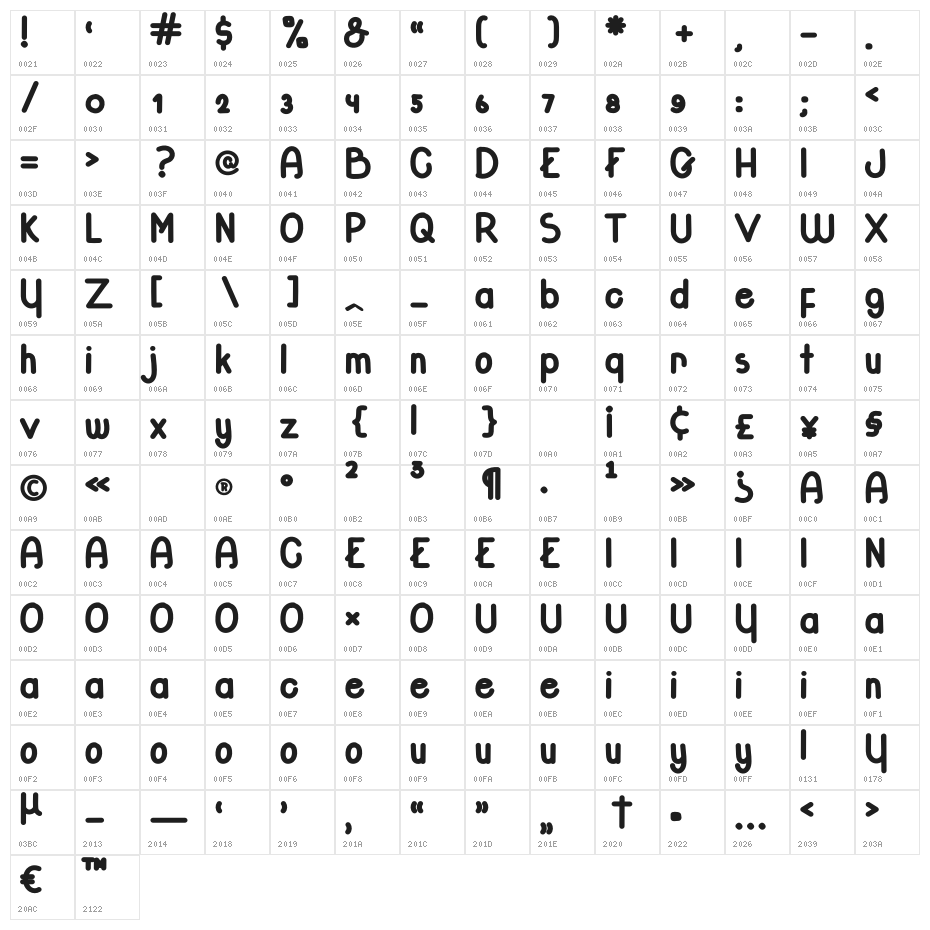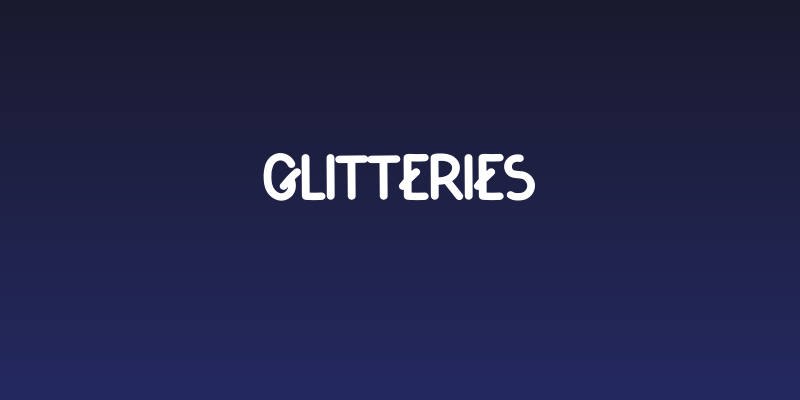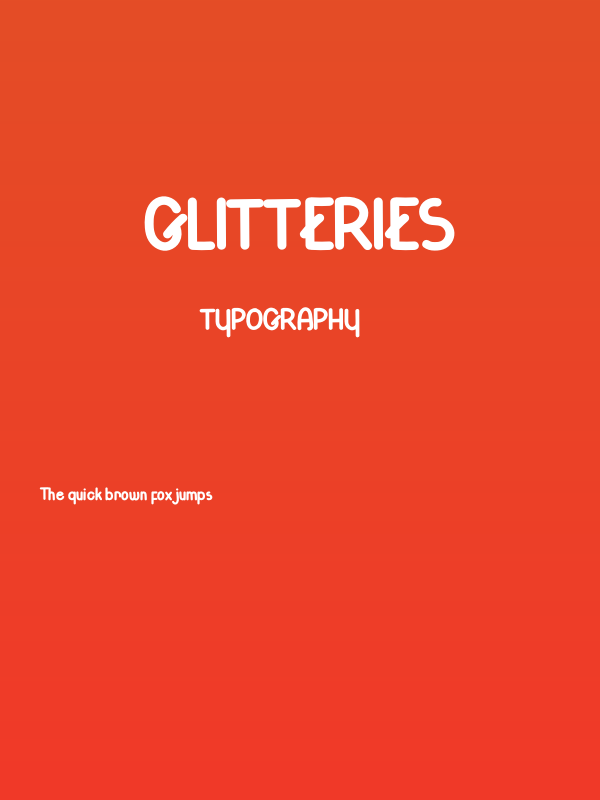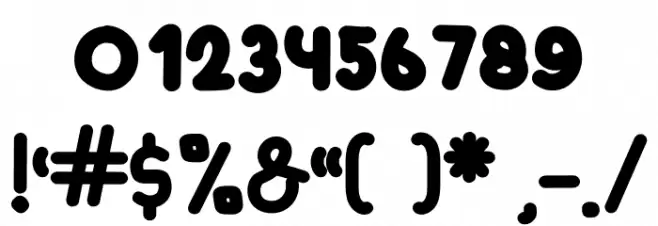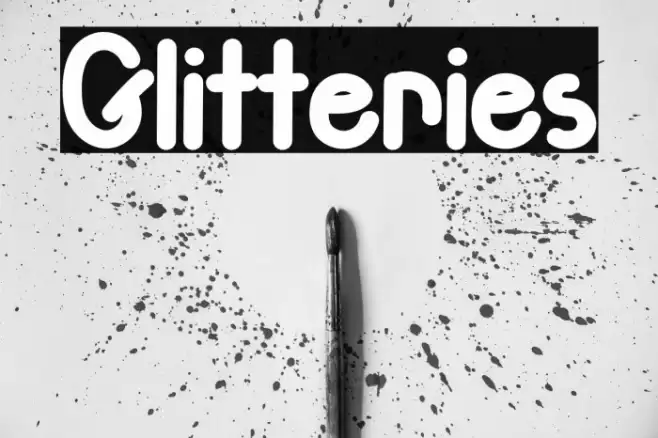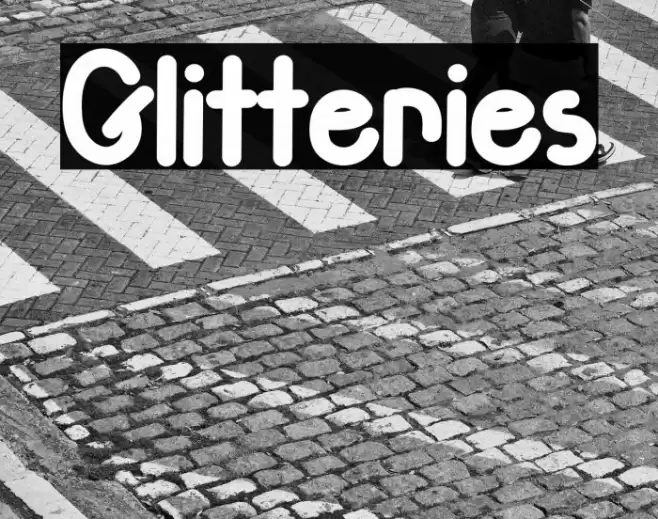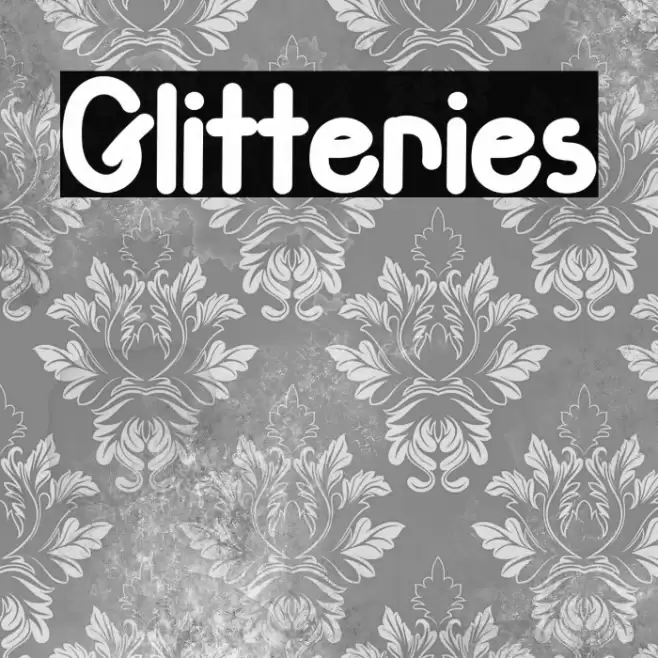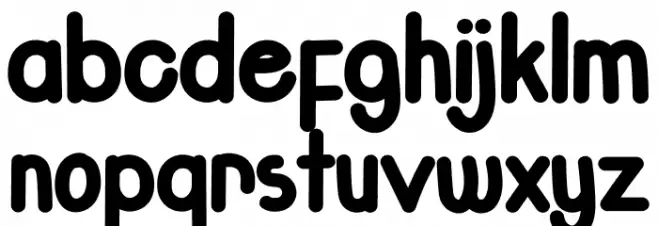
Glitteries Font
Glitteries Description
This playful and bold font features rounded edges and a bubbly appearance, giving it a friendly and approachable feel. The characters are evenly spaced, with a consistent thickness throughout, making it easy to read while maintaining a whimsical charm. The uppercase and lowercase letters are well-balanced, and the numbers and special characters complement the overall style. This font's unique personality makes it suitable for creative projects that require a touch of fun and vibrancy.
| Overall Style | Playful |
| Use Case | Logos, Posters, Invitations |
| Proposed Projects | Ideal for children's books, playful branding, party invitations, and creative posters. |